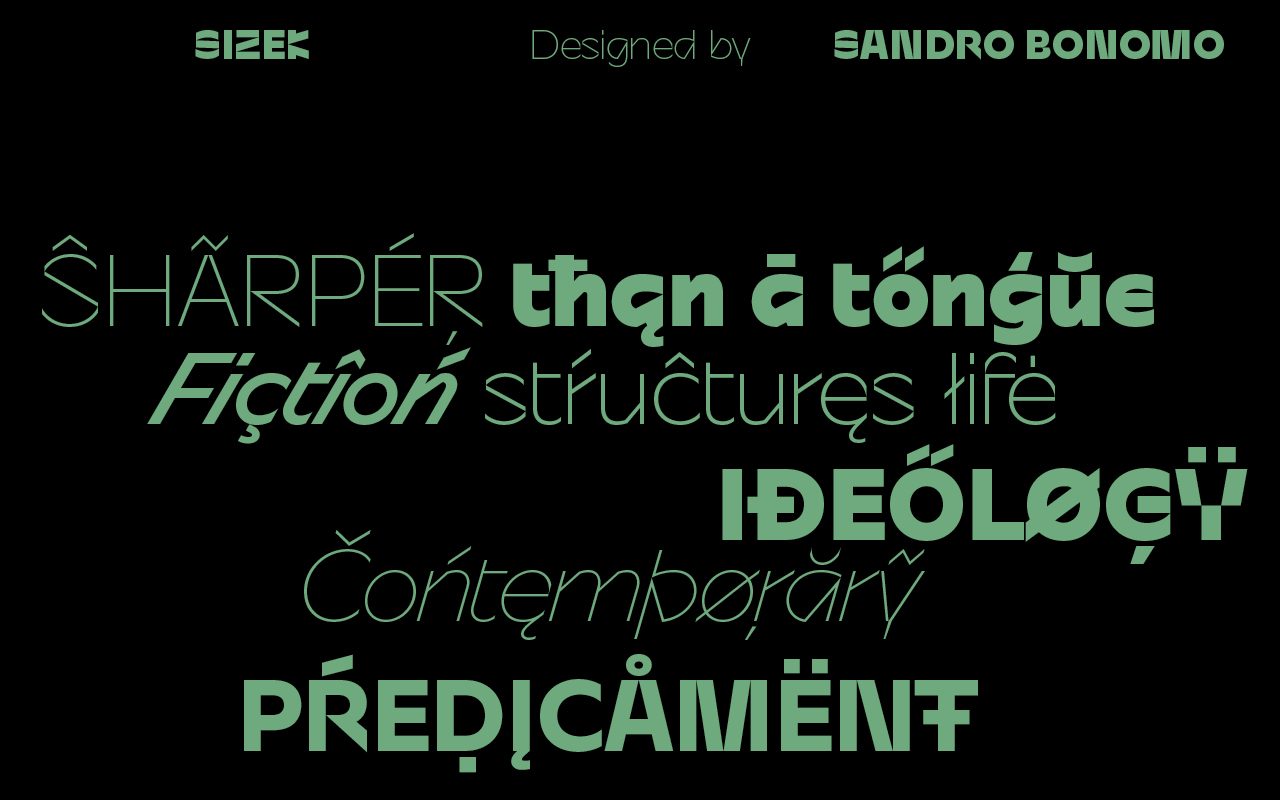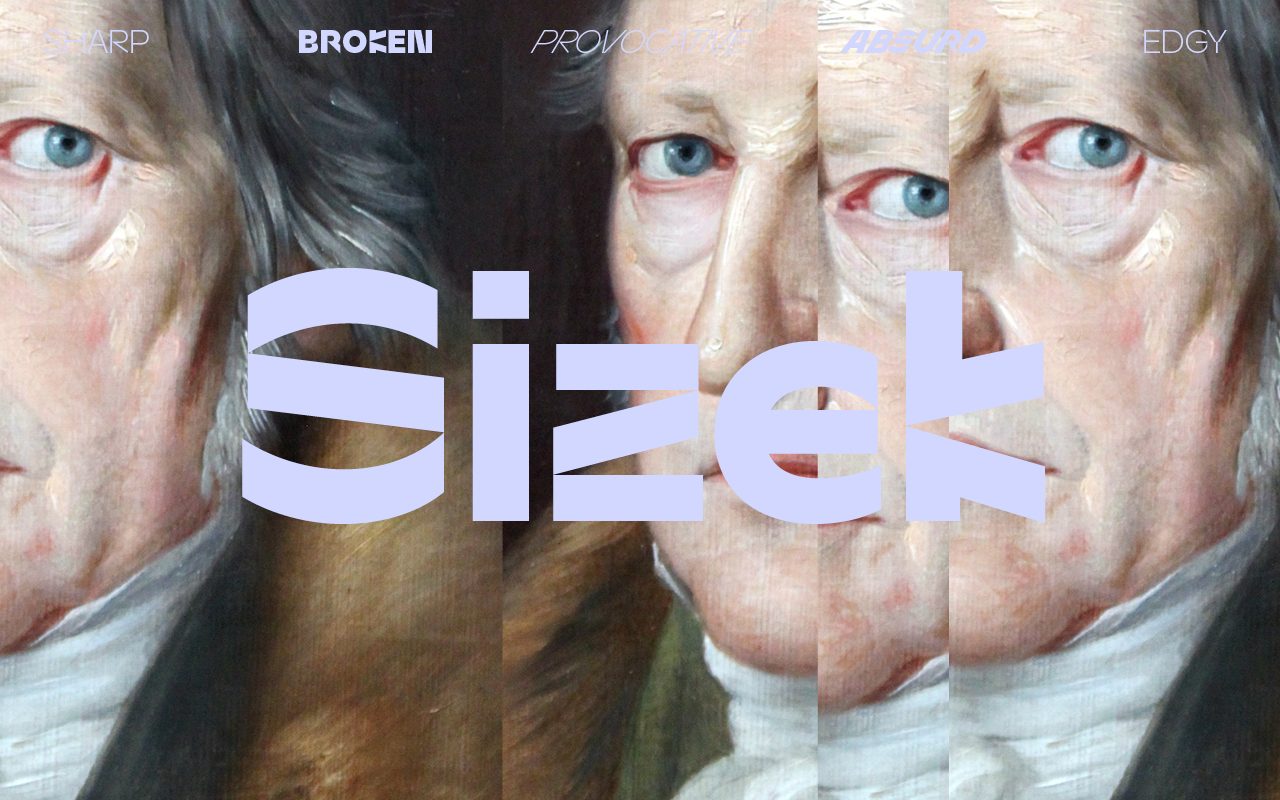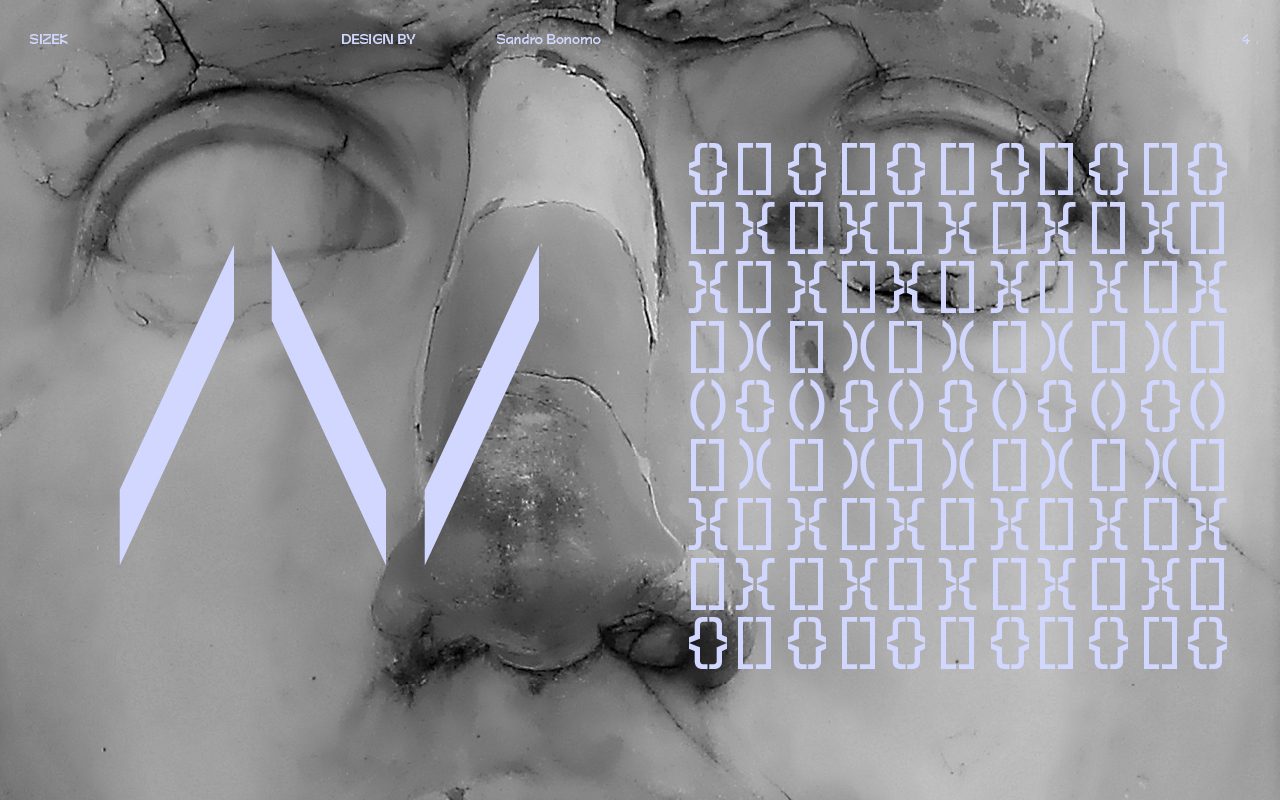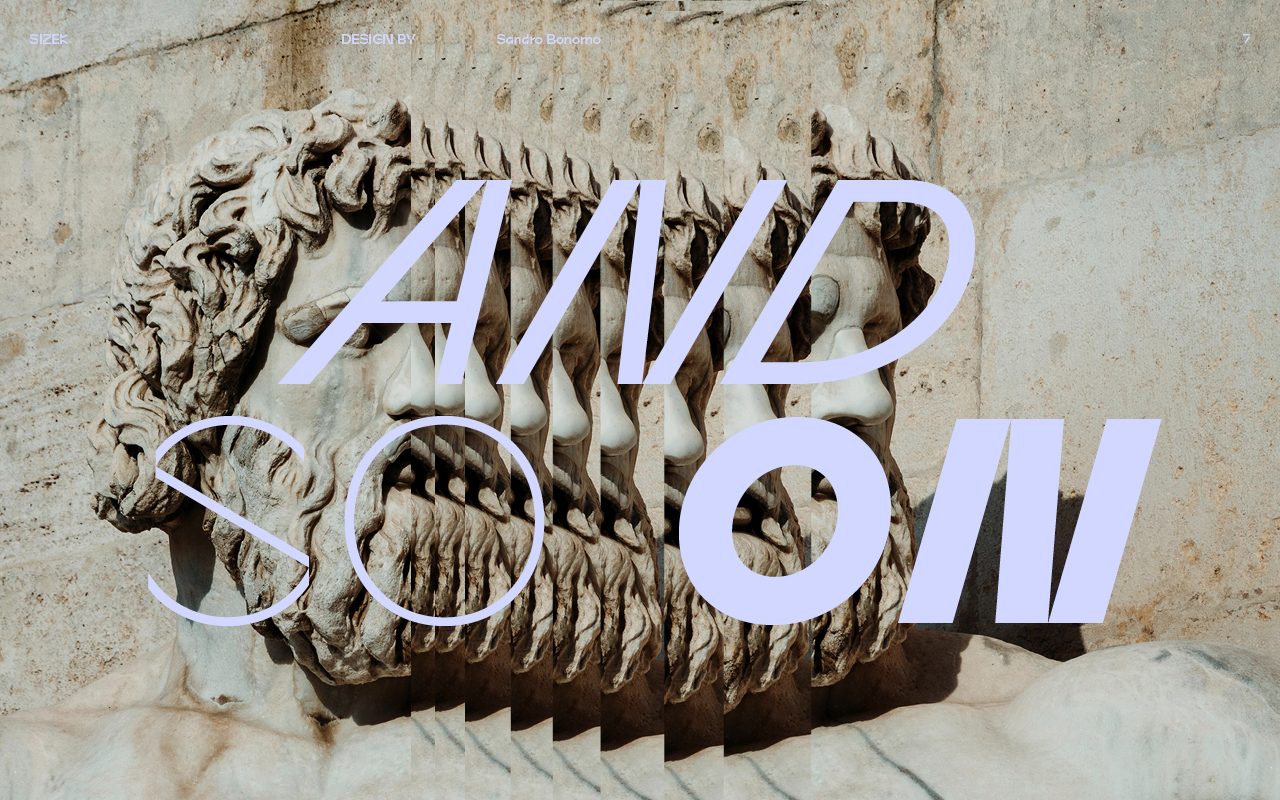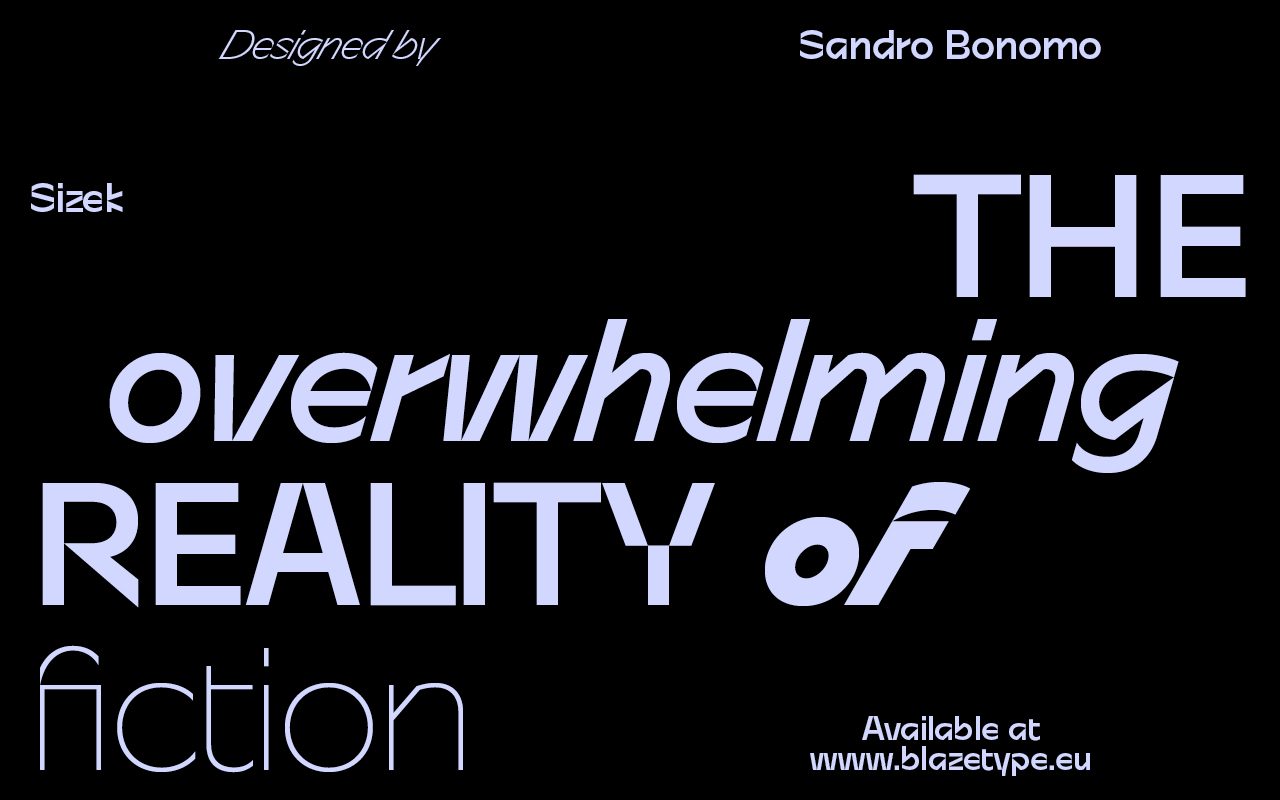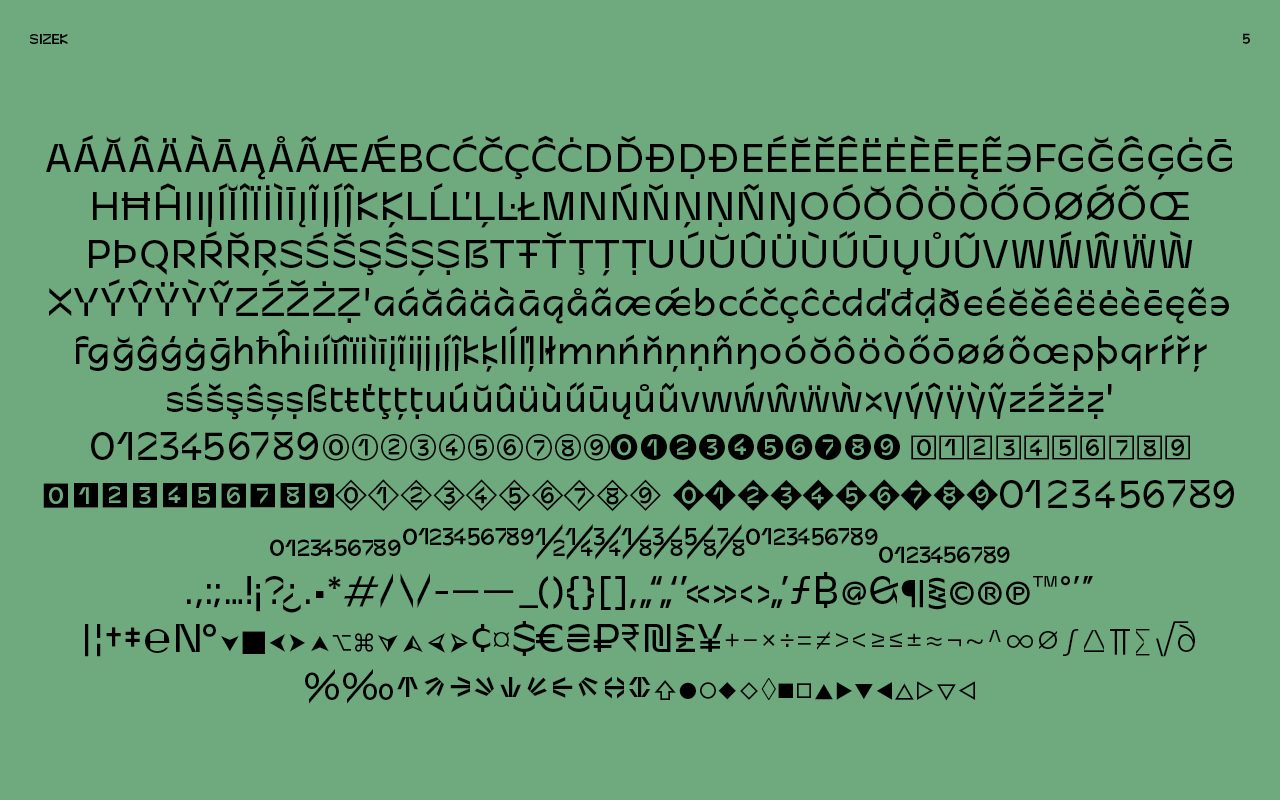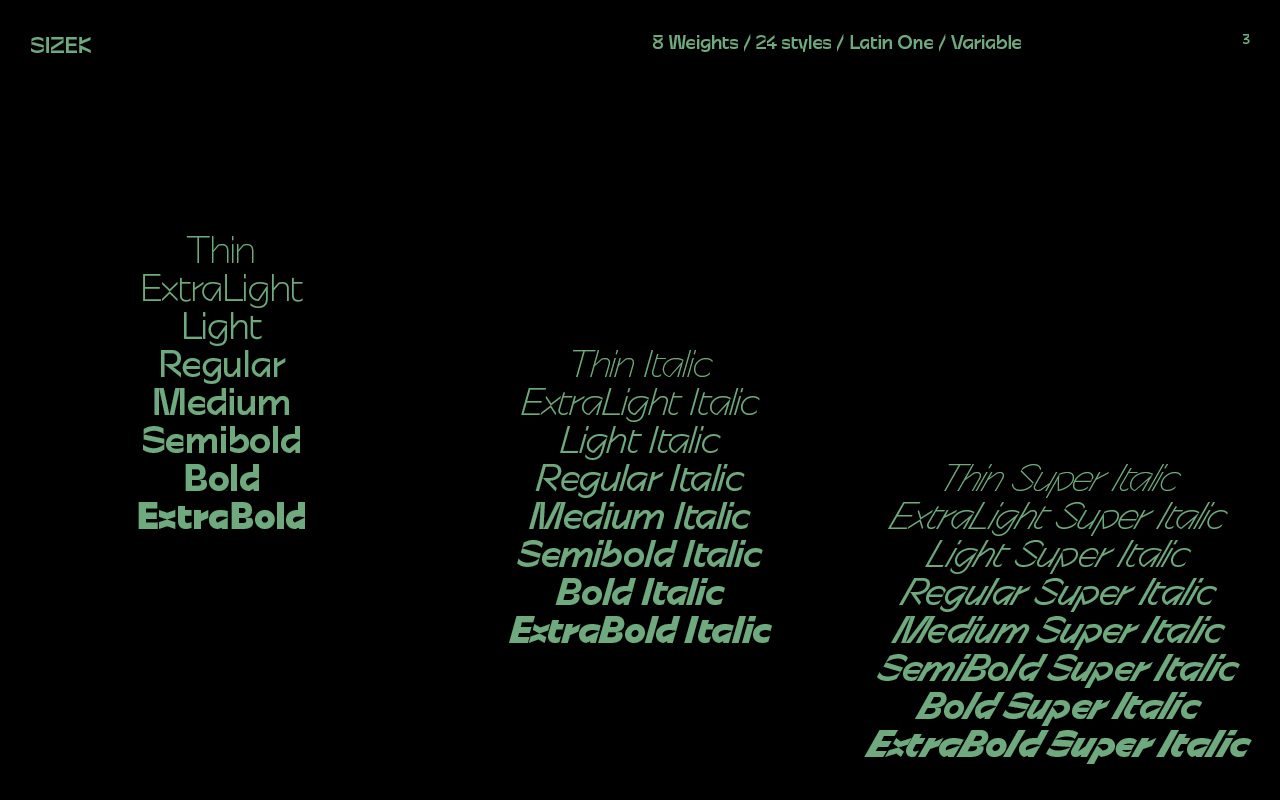
Sizek
Sizek is an experimental display typeface that reimagines and deconstructs the classical calligraphic structure of letters. It takes inspiration from the digital age's glitches, lags, and damaged or half-loaded files, reflecting the challenges and quirks of working with technology. Sizek presents a fractured, harsh, and edgy aesthetic. Letters are disrupted by intentional breaks and divisions, reassembled into unconventional shapes and counters. These irregular forms also evoke a sense of human nervousness and tics, reflecting the chaotic beauty and unpredictability of the digital age.
Sandro Bonomo